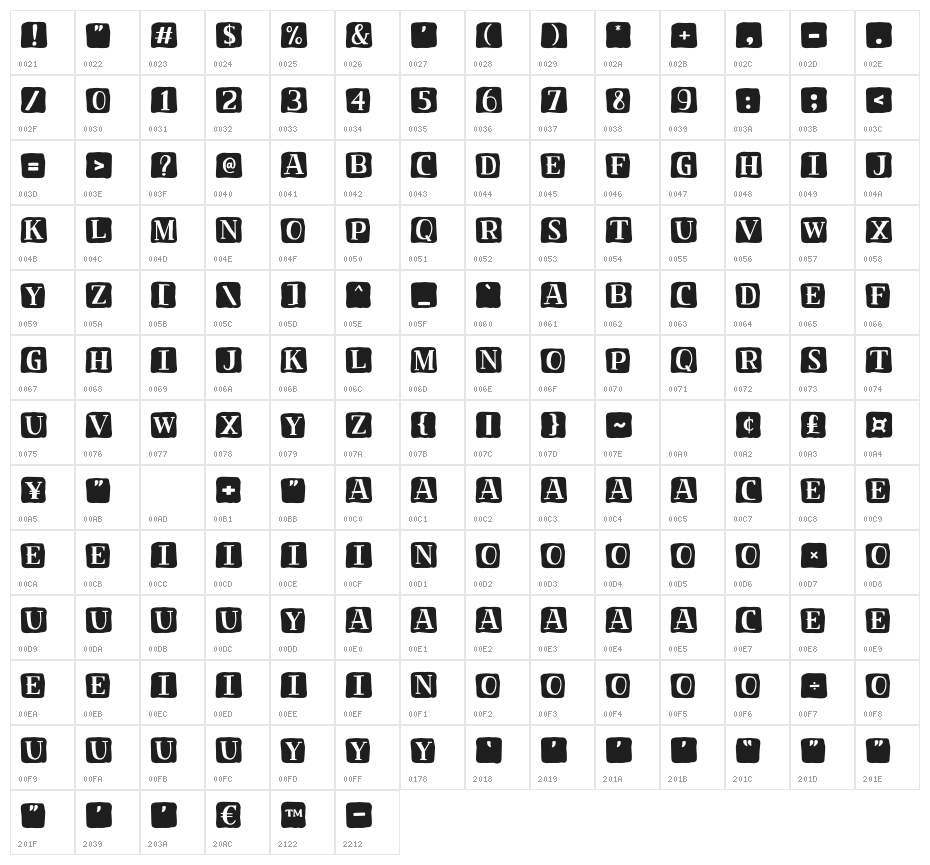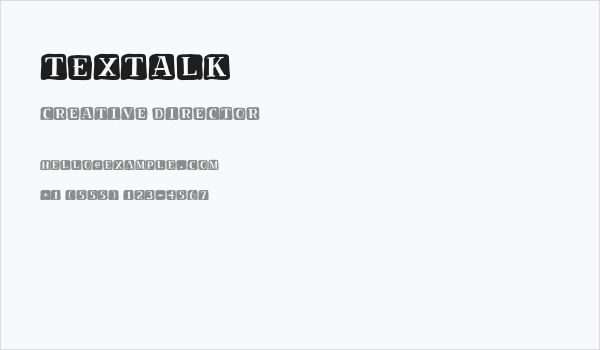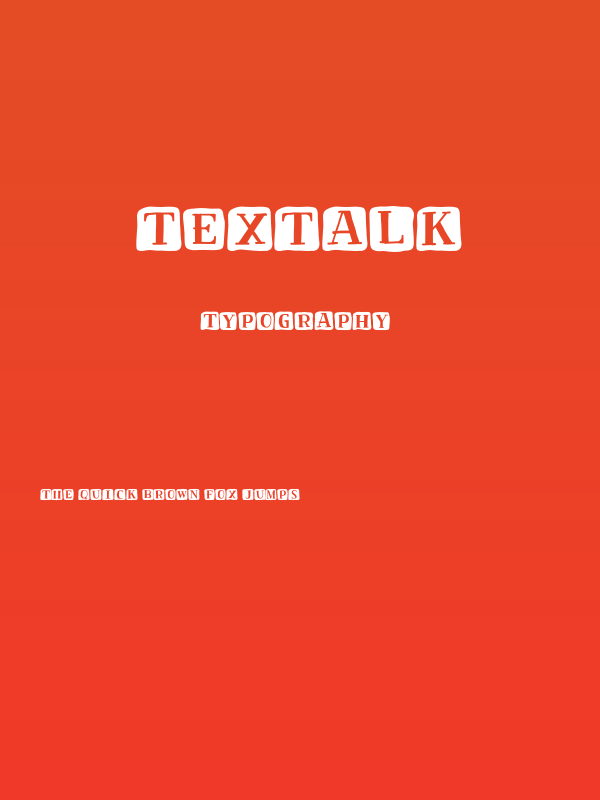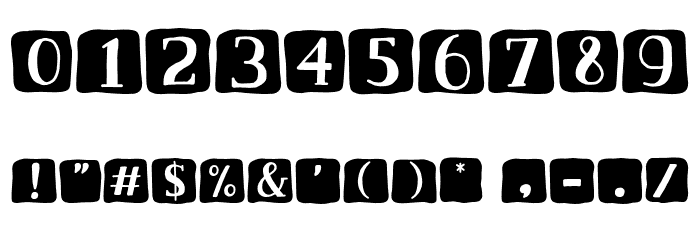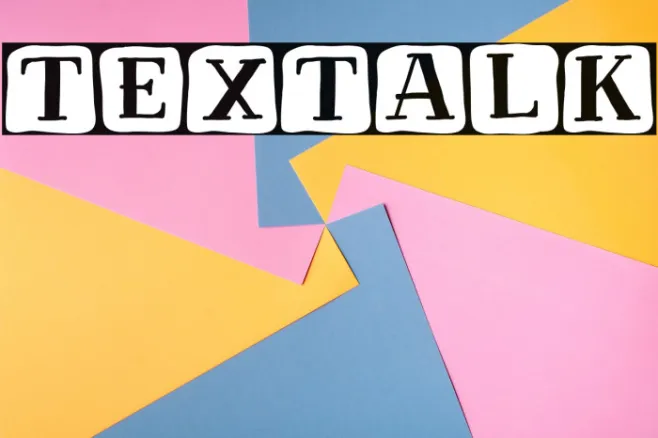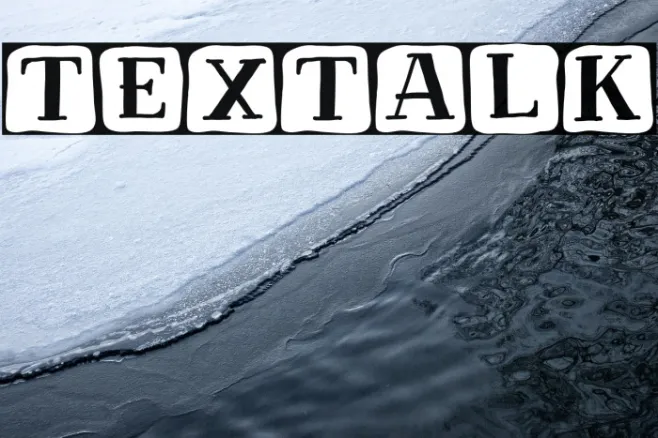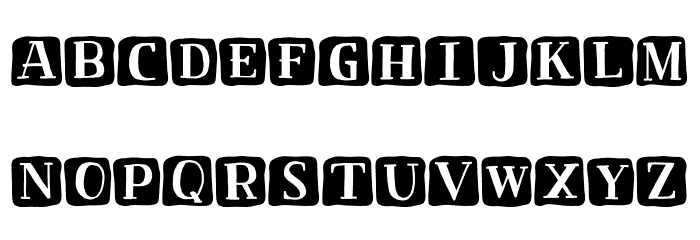
Textalk Font
Textalk Description
This font features a bold, blocky design with each character enclosed in a solid black square, creating a striking and impactful appearance. The letters are uppercase and have a slightly condensed form, with a consistent stroke width that gives them a uniform look. The contrast between the white letters and the black background enhances readability and makes each character stand out distinctly. The numbers and special characters follow the same design principle, maintaining the cohesive style throughout the set. This font's unique presentation makes it ideal for projects that require a strong visual impact.
| Proposed Projects | Ideal for posters, headlines, logos, and any design requiring a bold statement. |